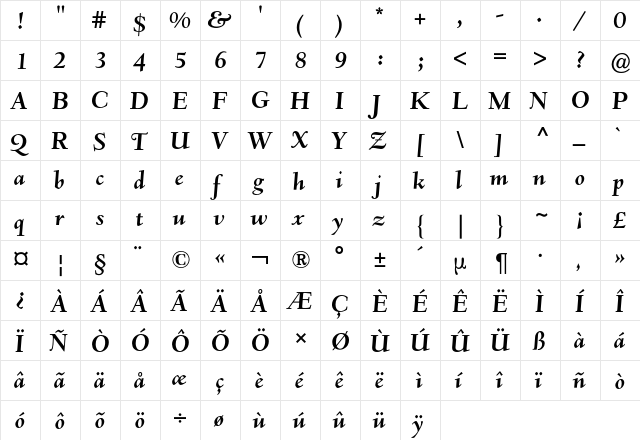
Deepdene BQ Regular Font Preview
Deepdene BQ Regular
Design Context for Deepdene BQ Typeface
Deepdene BQ is a composed and adaptable typeface that performs quietly and consistently across a wide range of design contexts.